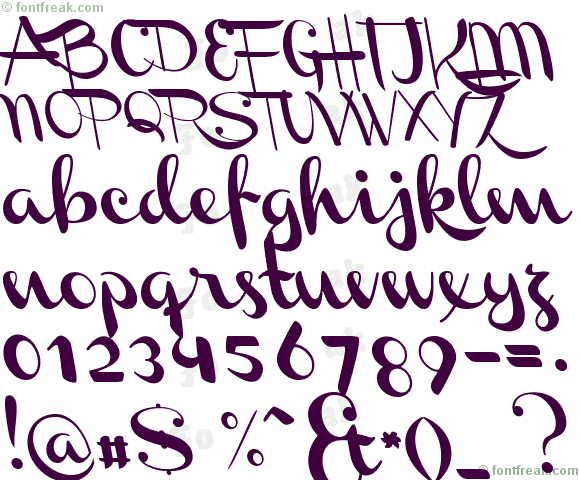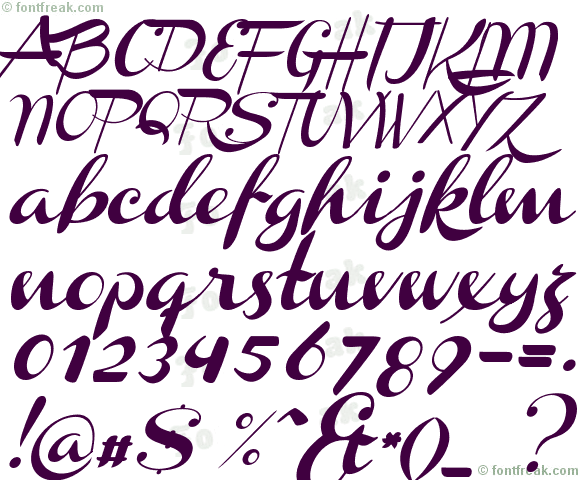
Channel Left-Slanted
Channel Left-Slanted by Mans Greback is a captivating display font that combines artistic flair with a unique slanted design. This font falls into the decorative category, characterized by its playful strokes and dynamic structure. The left-slanted orientation adds a sense of movement, making it stand out in various design applications. The stroke weight is moderately bold, providing a strong presence without overwhelming the viewer, while the contrast between the thick and thin lines enhances its visual appeal.
The Channel Left-Slanted font is ideal for several specific use cases. It works wonderfully for wedding invitations, where its whimsical style can add a touch of elegance and personalization. Additionally, it's perfect for movie posters, allowing titles to leap off the page with energy and excitement. Restaurant menus can also benefit from this font, as it draws attention to dish names and specials, enticing diners with its charm. Furthermore, small business owners looking to create memorable branding will find this font invaluable for logos and promotional materials.
The target audience for Channel Left-Slanted includes graphic designers, content creators, and small business owners who seek to convey a creative and inviting message. Its unique characteristics make it a versatile choice for various projects, ensuring that it can meet the needs of a diverse clientele.
What sets the Channel Left-Slanted font apart is its ability to blend artistic expression with functionality. Its distinct slant and decorative elements make it not only visually appealing but also highly versatile, capturing attention in any context. For those interested in infusing their designs with character, the Channel Left-Slanted font free download offers an excellent opportunity to elevate any project.